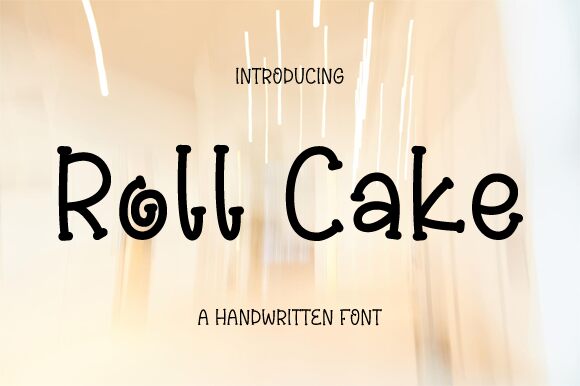
Roll Cake, designed by Nirmala Creative, is a whimsical display font that brings the playful charm of cartoon aesthetics to typography. Its letters dance with a dynamic rhythm, reminiscent of fun and frolic, making it instantly captivating and endearing. The font's creative flair is evident in its unique character shapes and informal style, which evoke a sense of joy and childlike wonder.
Perfect for projects that require a touch of lightheartedness or nostalgia, Roll Cake is ideal for children's books, party invitations, branding for sweets or bakeries, and any design work where a sprinkle of happiness is needed. This delightful font can make words come alive with personality and warmth-just what you need to craft engaging messages that pop off the page or screen.